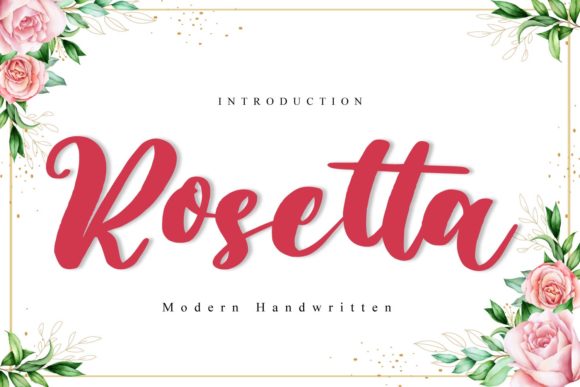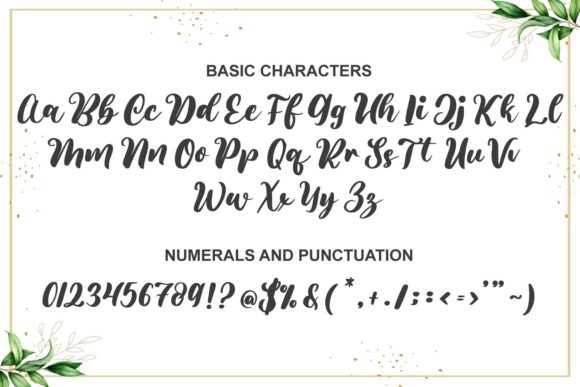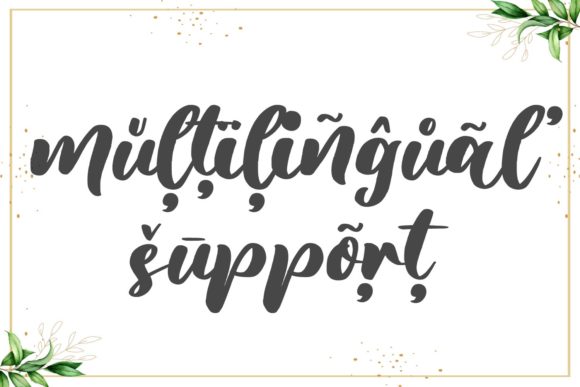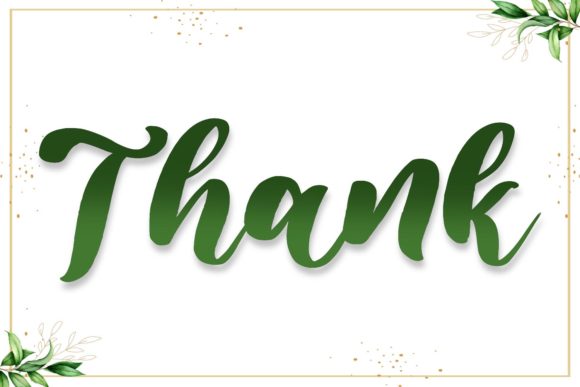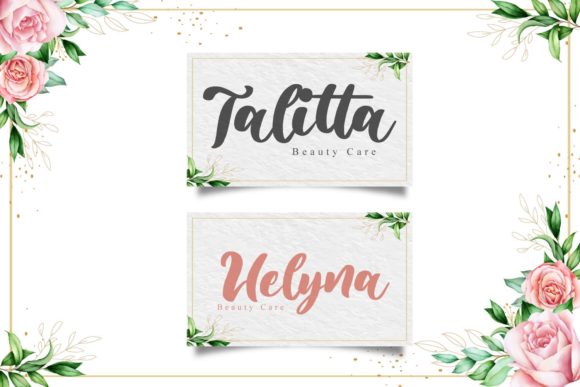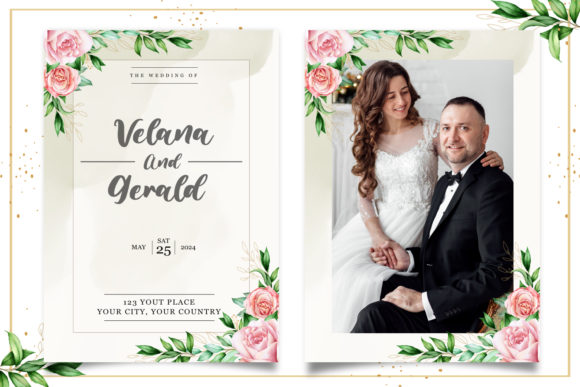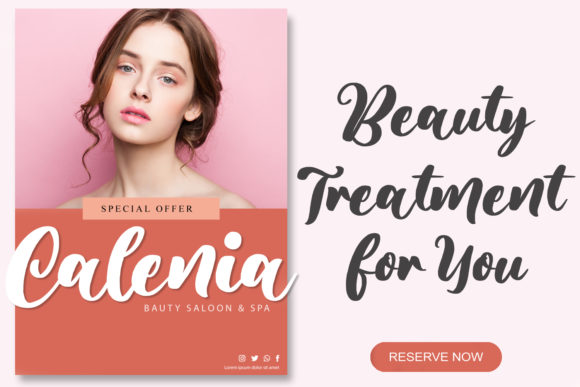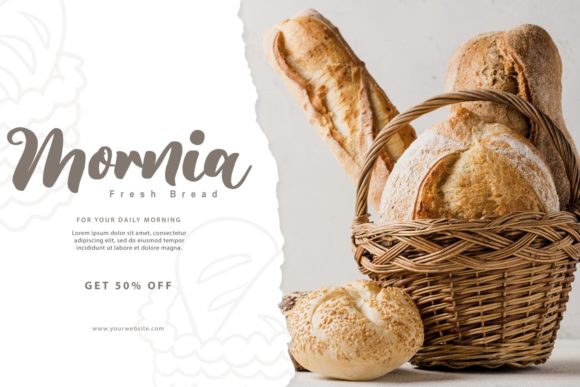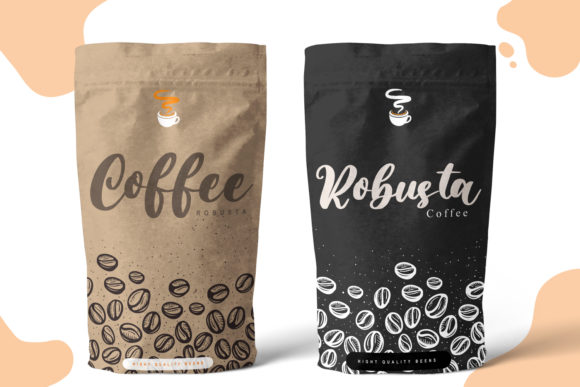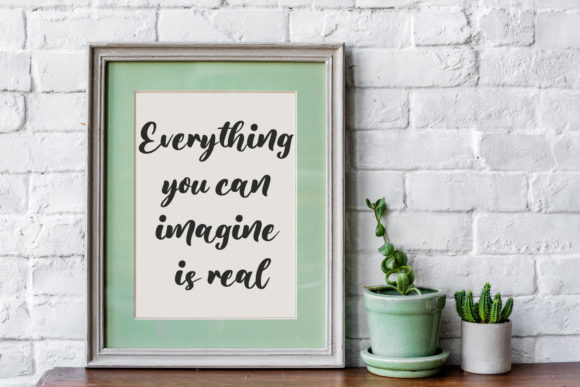
Rosetta Font
Introducing Rosetta, an exquisite script font that embodies class, elegance, and modernity. With its stunning design and versatile nature, Rosetta is the perfect choice for a wide range of design projects, including logos, branding, invitations, stationery, wedding designs, social media posts, and so much more.
Rosetta exudes sophistication with its graceful letterforms and balanced strokes. Each character is meticulously crafted to create a harmonious flow and a sense of refined beauty. Whether you’re designing a high-end logo for a luxury brand or creating elegant wedding invitations, Rosetta adds a touch of timeless elegance to your work.
The modern look of Rosetta makes it a versatile font that adapts effortlessly to various design contexts. Its clean lines and contemporary style make it suitable for both digital and print projects. From sleek and minimalistic designs to bold and expressive compositions, Rosetta brings a touch of sophistication to every design it graces.
Rosetta’s versatility extends to its range of potential applications. Use it to create stunning branding materials that leave a lasting impression on your audience. Craft elegant invitations that set the tone for special events and celebrations. Design captivating social media posts that stand out in a crowded digital landscape. Rosetta is your key to creating designs that are both visually striking and emotionally captivating.
With Rosetta, you have the freedom to unleash your creativity and customize your designs. The font offers a wide array of stylistic alternates, ligatures, and swashes, allowing you to create unique and personalized compositions. Whether you want to add a decorative flourish to a letter or combine letterforms to achieve a distinctive look, Rosetta provides the tools you need to bring your creative vision to life.
In addition to its aesthetic appeal, Rosetta is designed with functionality in mind. It is compatible with various design software, making it easy to incorporate into your creative workflow. The font’s legibility ensures that your message is conveyed clearly and effectively, while its elegant appearance adds a touch of sophistication to every word.
Choose Rosetta as your go-to font for projects that require a blend of elegance, modernity, and versatility. Let it elevate your designs and make a lasting impression on your audience. With Rosetta, your creations will stand out from the crowd and leave a lasting impact.
Experience the beauty and versatility of Rosetta and let it transform your designs into works of art. Whether you’re designing for personal or professional purposes, Rosetta will bring a touch of class and elegance to your projects. Embrace the endless possibilities that Rosetta offers and create designs that inspire and captivate.
With Rosetta, you have the power to create stunning visuals that leave a lasting impression. Let this incredibly beautiful script font be your companion on your creative journey, and watch as your designs come to life with sophistication and grace.